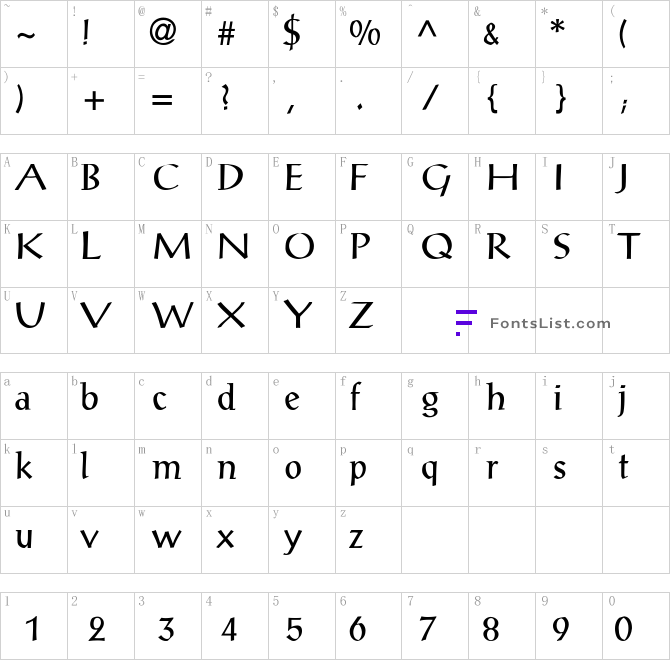
Antiqua-Light-SSi-Light.ttf is a very beautiful artistic font, Antiqua-Light-SSi-Light.ttf is widely used in the design and printing of various books and pictures,Antiqua-Light-SSi-Light.ttf has a strong visual impact,Antiqua-Light-SSi-Light.ttf is a commonly used font in newspapers, magazines and books, and is used in posters, e-commerce Poster design, store design, logo design, font design and other fields.Antiqua-Light-SSi-Light.